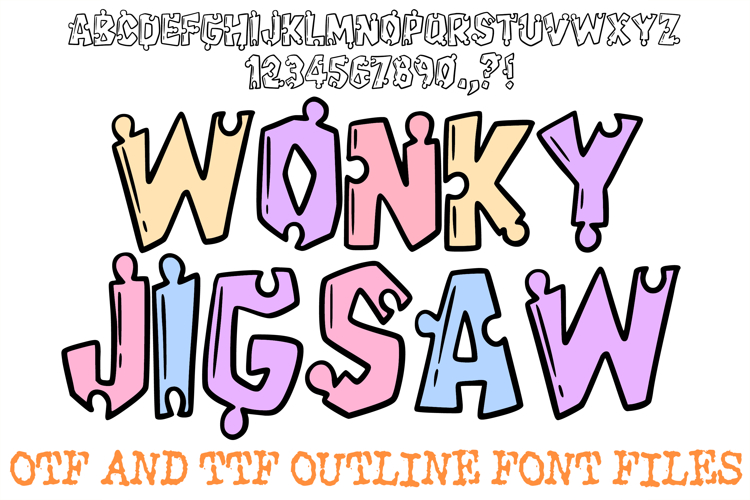
Wonky Jigsaw Alphabet Lettering Font Puzzle ABC OTF
Piece together a delightfully offbeat, playful aesthetic with the Wonky Jigsaw Font. Unlike a traditional flat puzzle grid, this unique display typeface features bold, chunky outlines where each individual letter and number is uniquely sculpted into a single standalone puzzle piece. Complete with asymmetrical geometry, whimsical hand-drawn highlights, and its own distinct arrangement of tabs and blanks, this alphabet captures a charmingly imperfect, hand-crafted look. It is an ideal typography choice for any headline that needs to feel lighthearted, tactile, and completely full of personality.
Delivered as an installable typeface, this crisp vector outline structure offers endless versatility for custom layout styling. It serves as an excellent resource for a designer who wants to add vibrant solid color backdrops, apply offset drop shadows, or style each character with contrasting pastel hues. The heavy, blocky line art scales flawlessly across all creative software, ensuring razor-sharp results for eye-catching digital templates and physical print media.